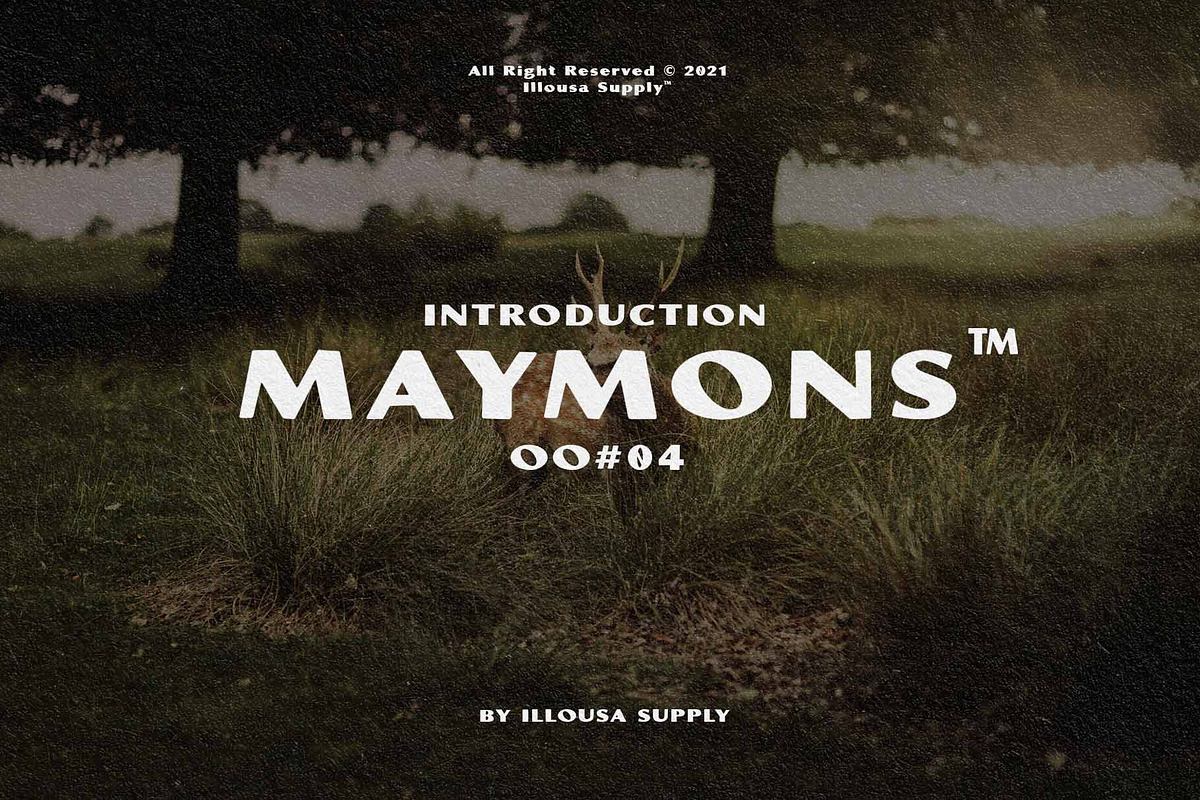
Maymons Font By Illousaco Free Download
Maymons Font Free Download
Maymons Font Free Download is an elegant and stylish serif typeface that combines modern sophistication with classic design elements. Featuring refined lines and distinctive serifs, Maymons is perfect for editorial layouts, fashion branding, luxury packaging, logos, and high-end design projects that require both clarity and elegance.
Its balanced proportions and timeless appeal make it ideal for both print and digital formats. Whether you're designing a high-fashion magazine spread or a premium product label, Maymons brings a touch of class and professionalism to your work.